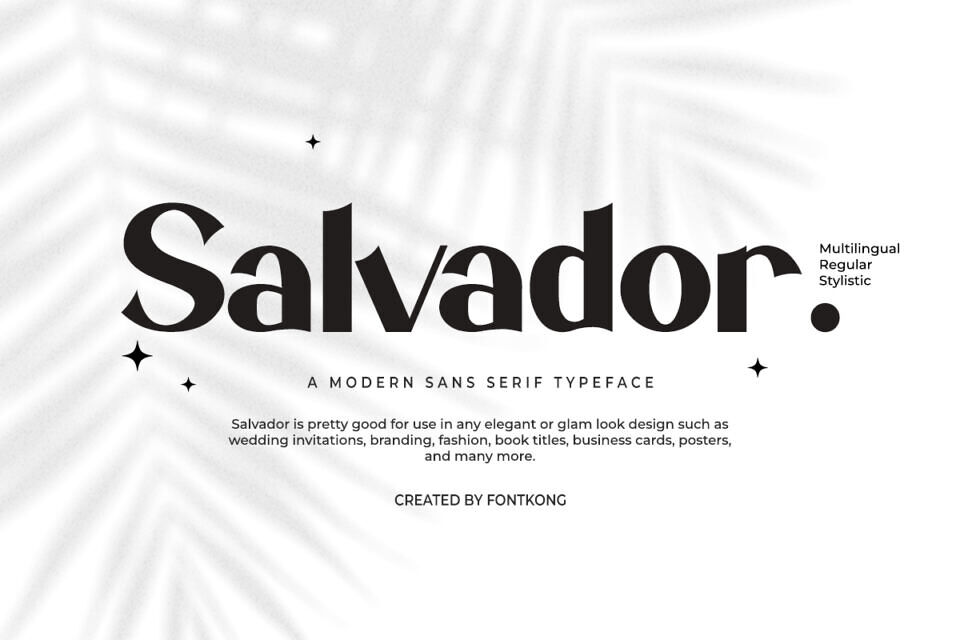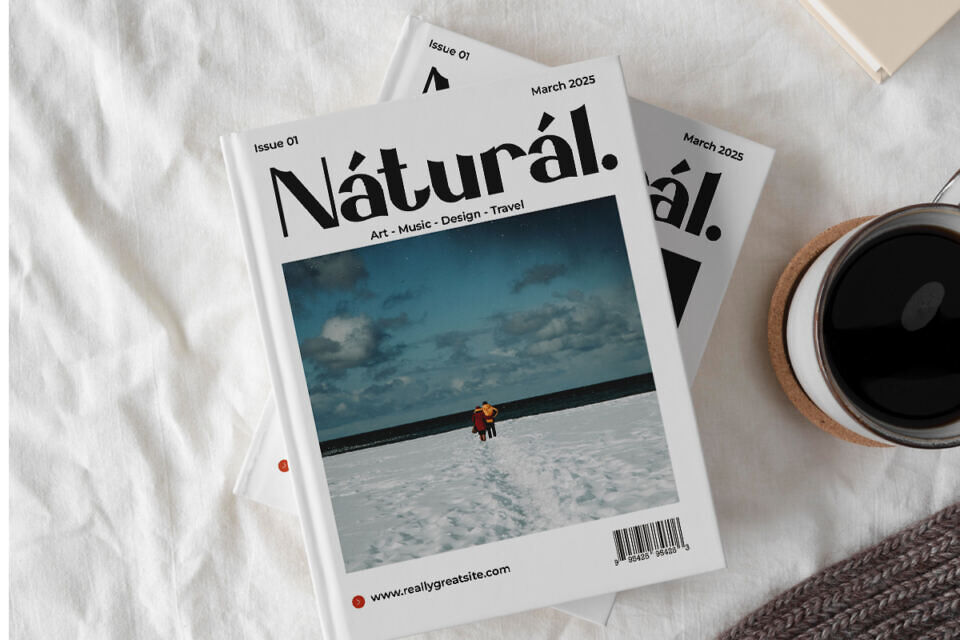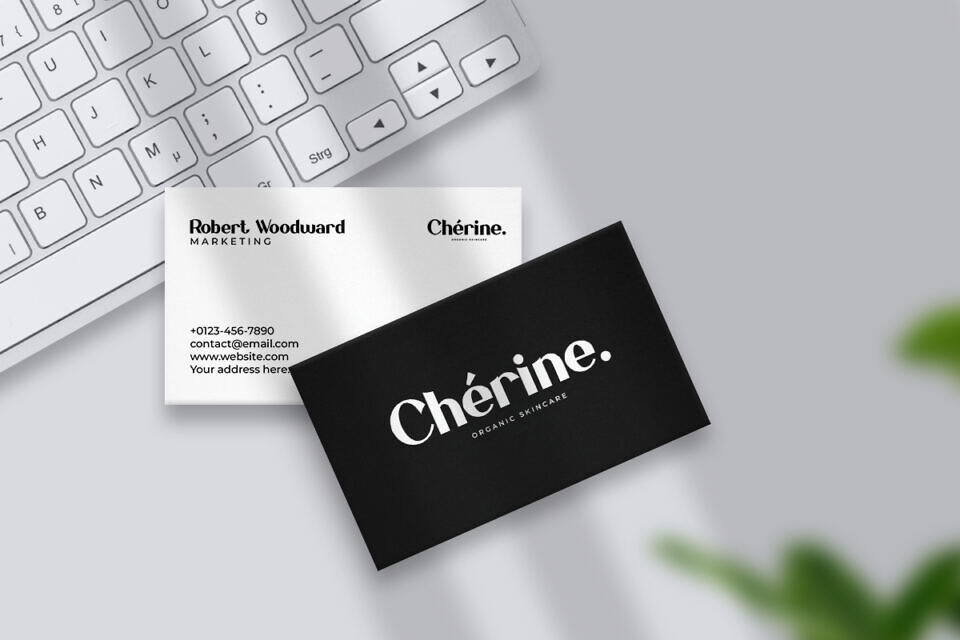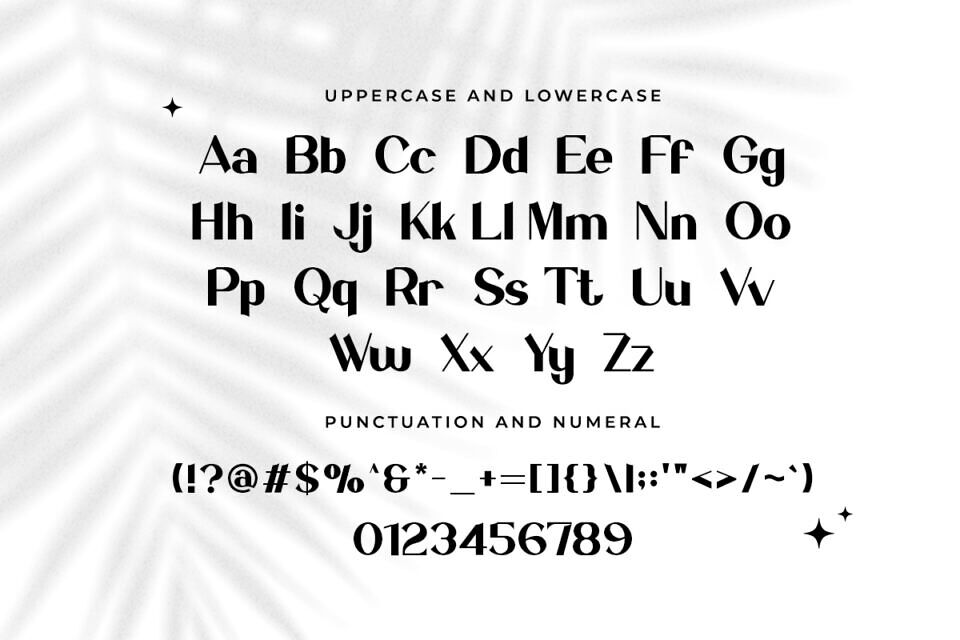
Salvador is a modern classy sans serif that exudes confidence with its simple, bold design. Its clean lines make it highly legible, making it perfect for various uses, including banners, posters, and merchandise.
It looks great in any size and can be used for both digital and print applications, such as video titles, product branding, and business cards. Its classic and classy impression makes it a great choice for those who prefer simple yet aesthetic fonts.